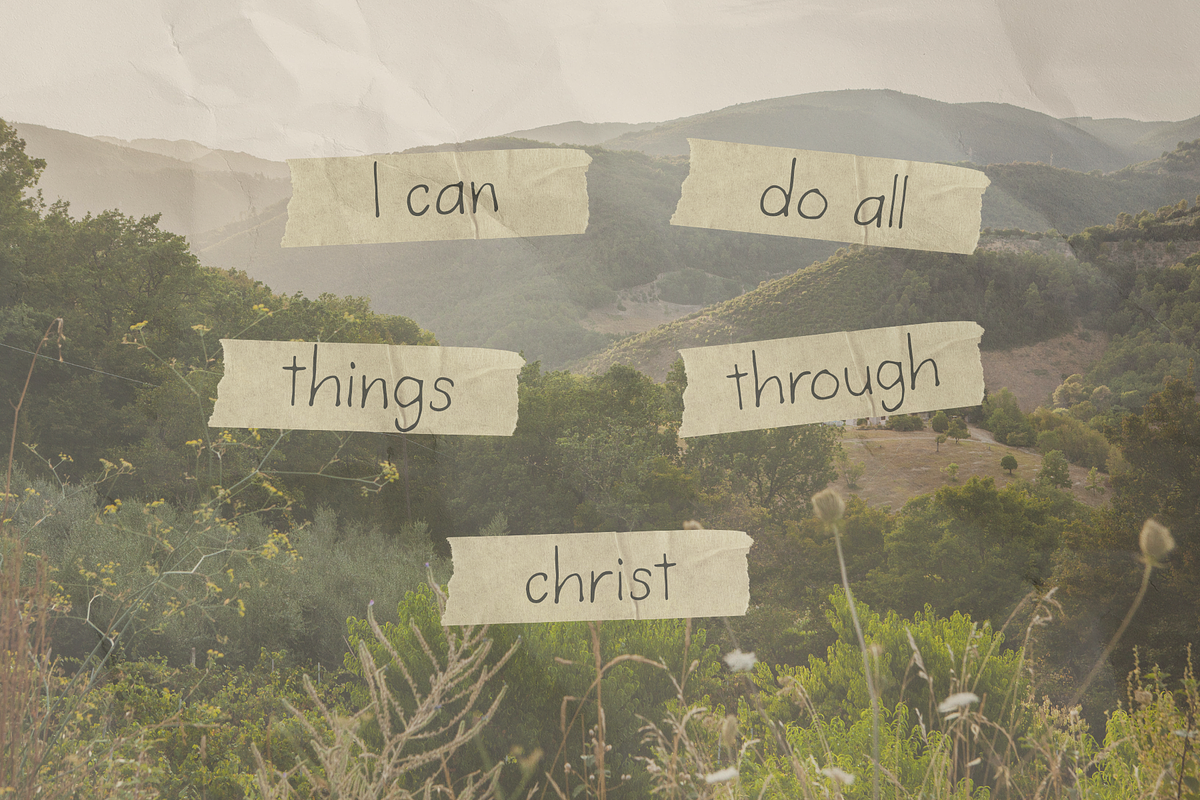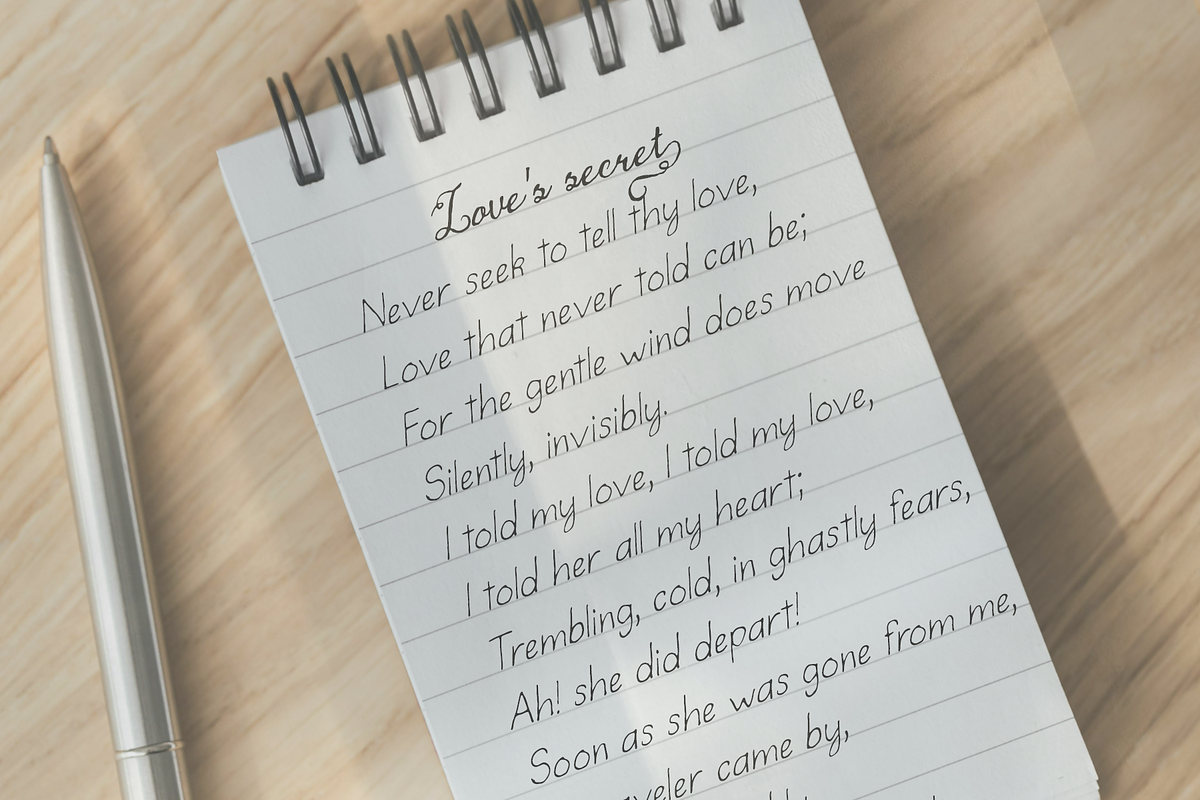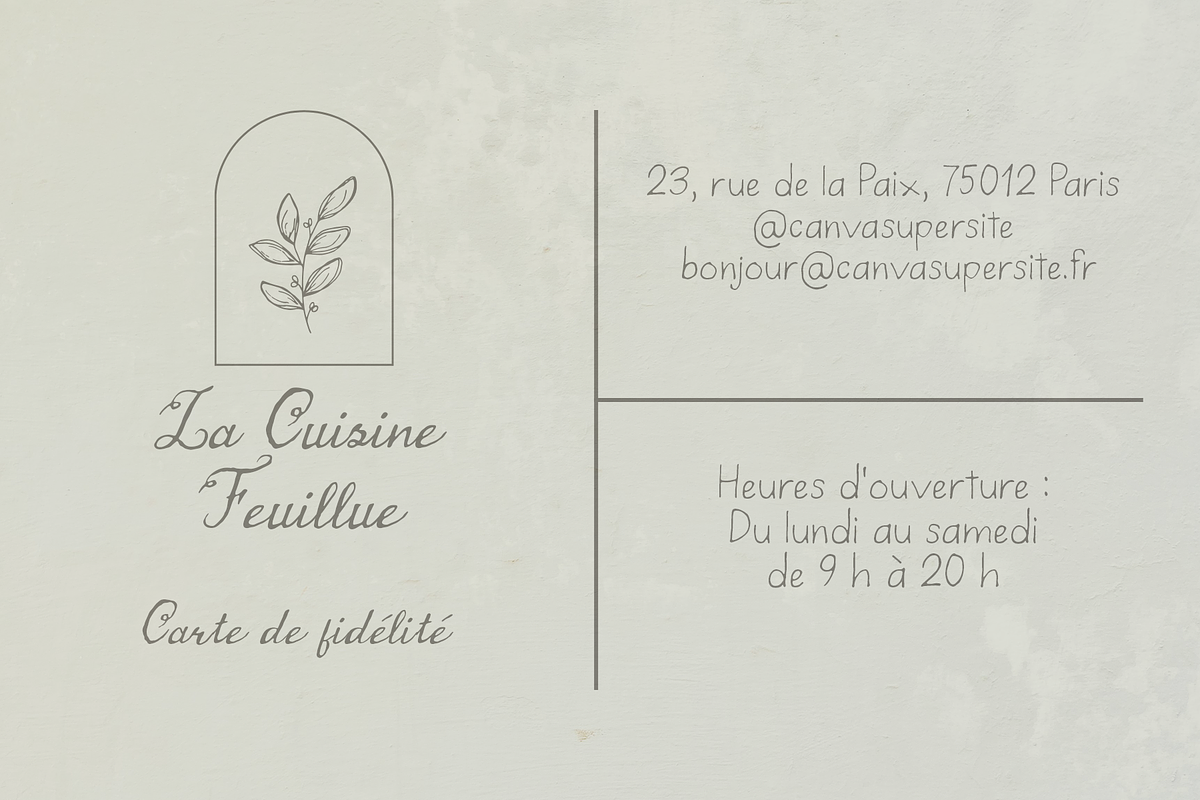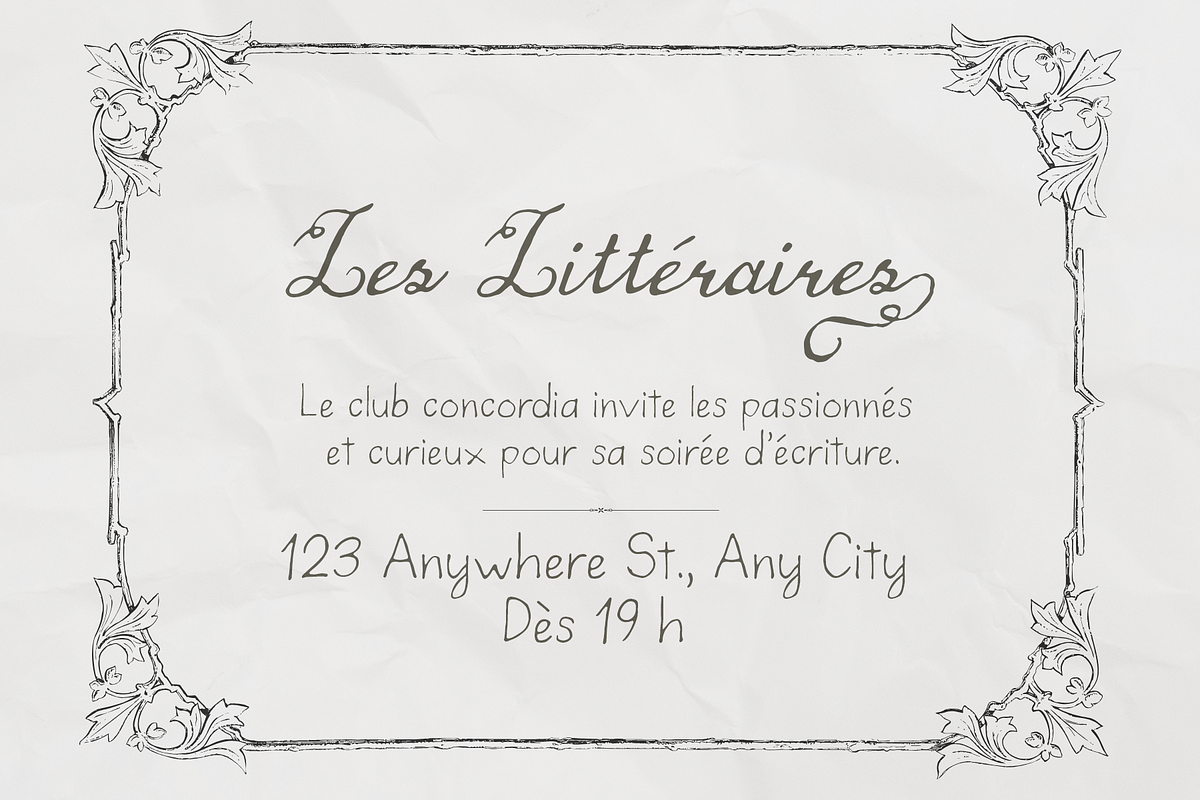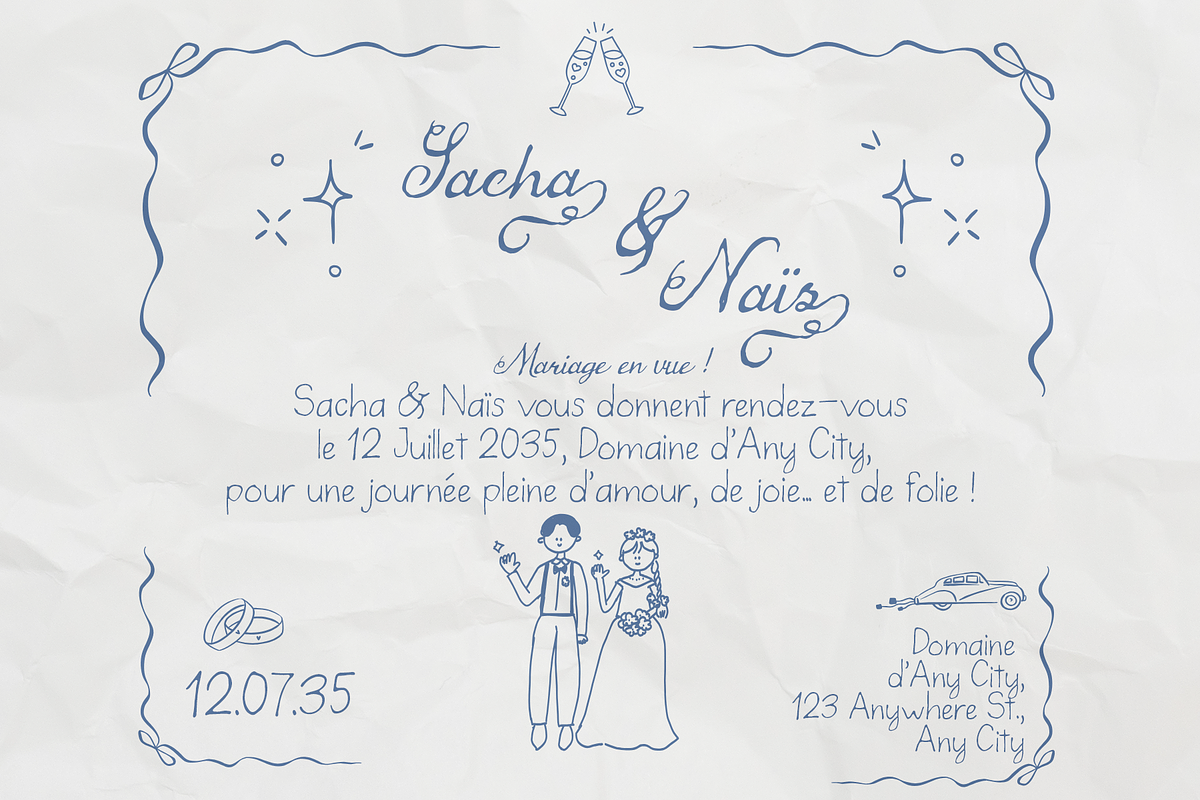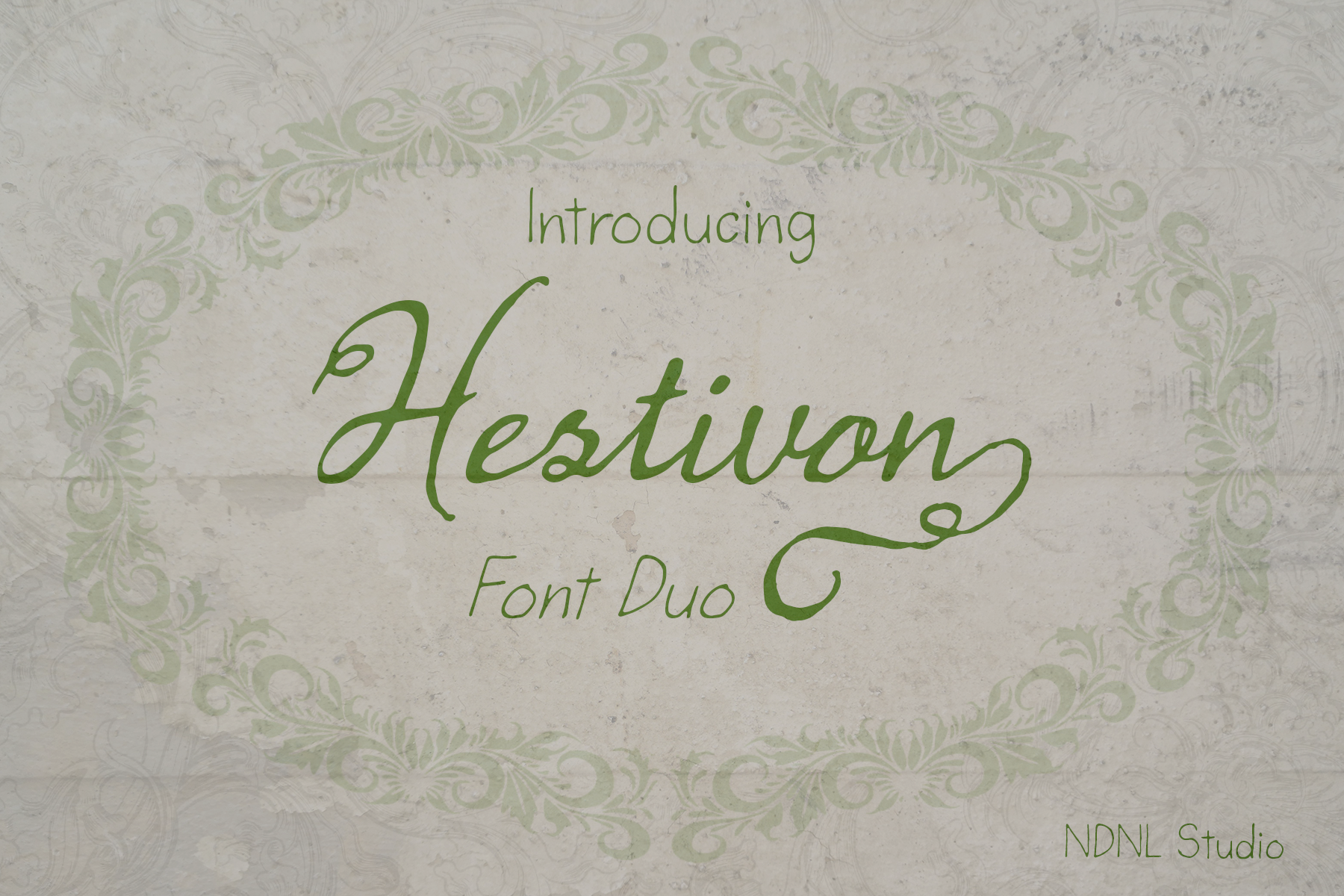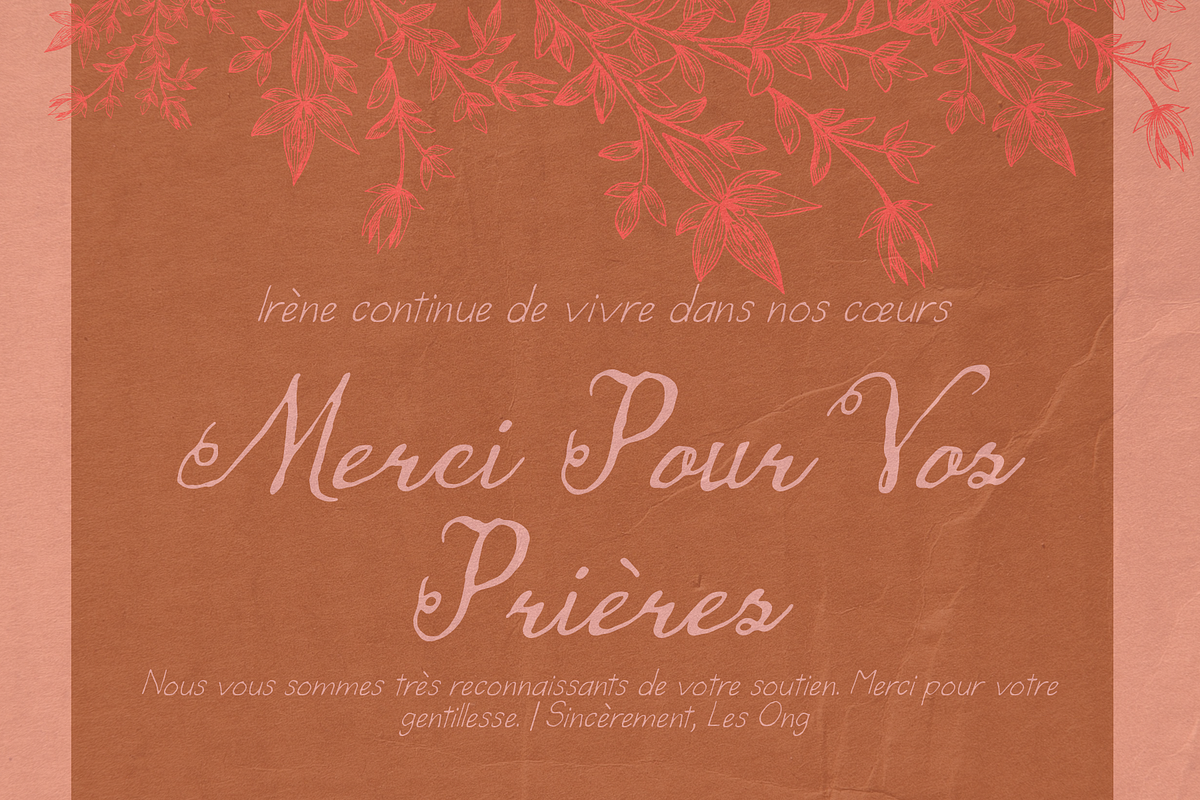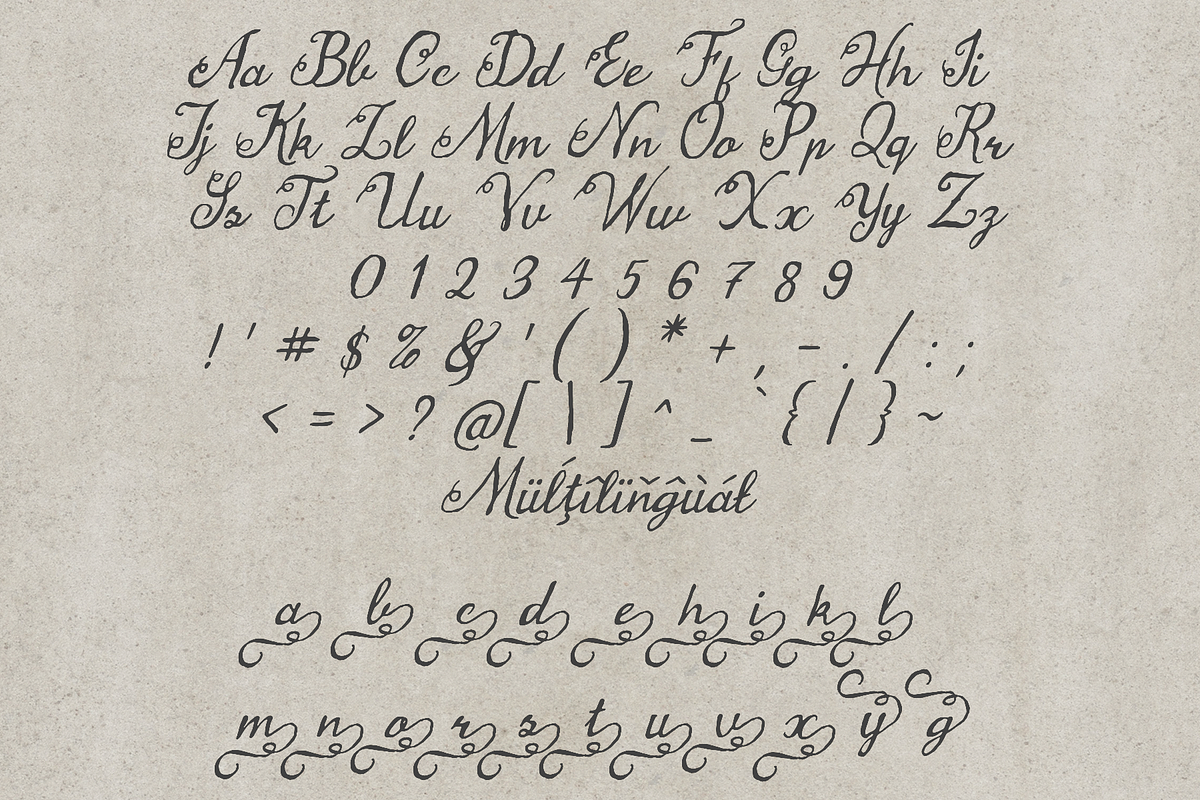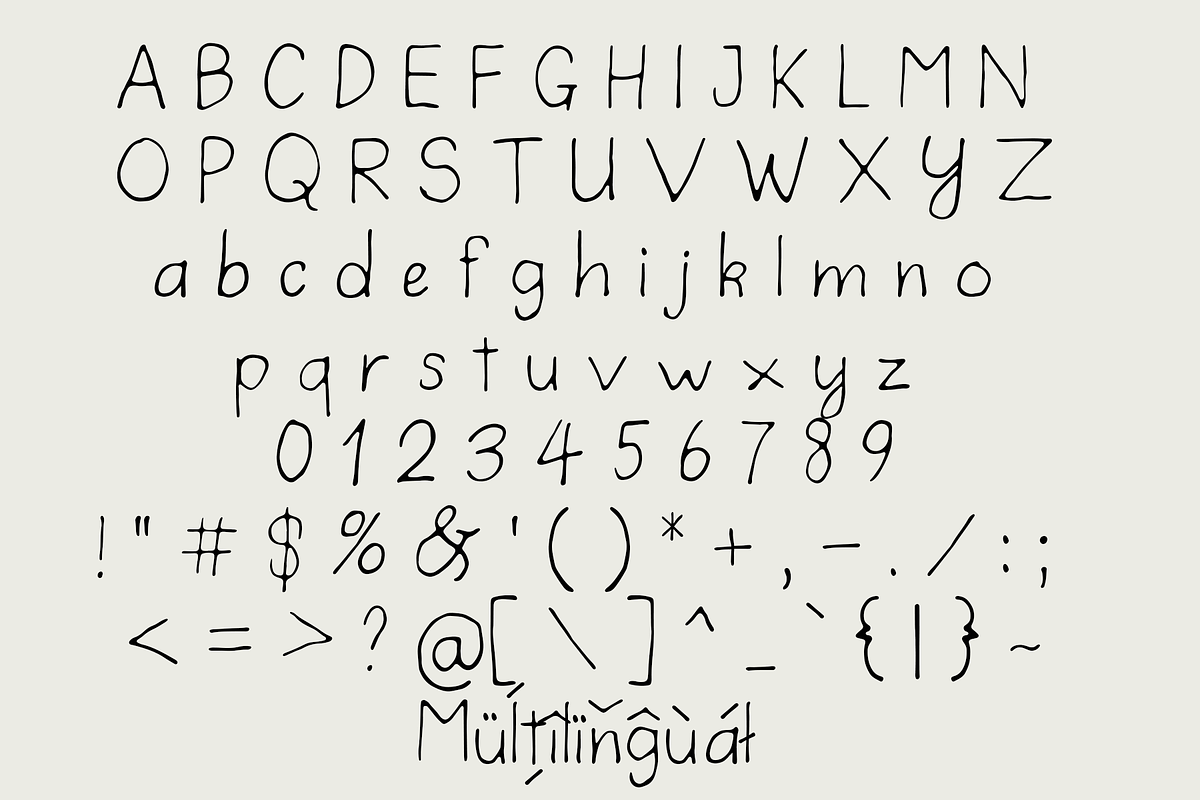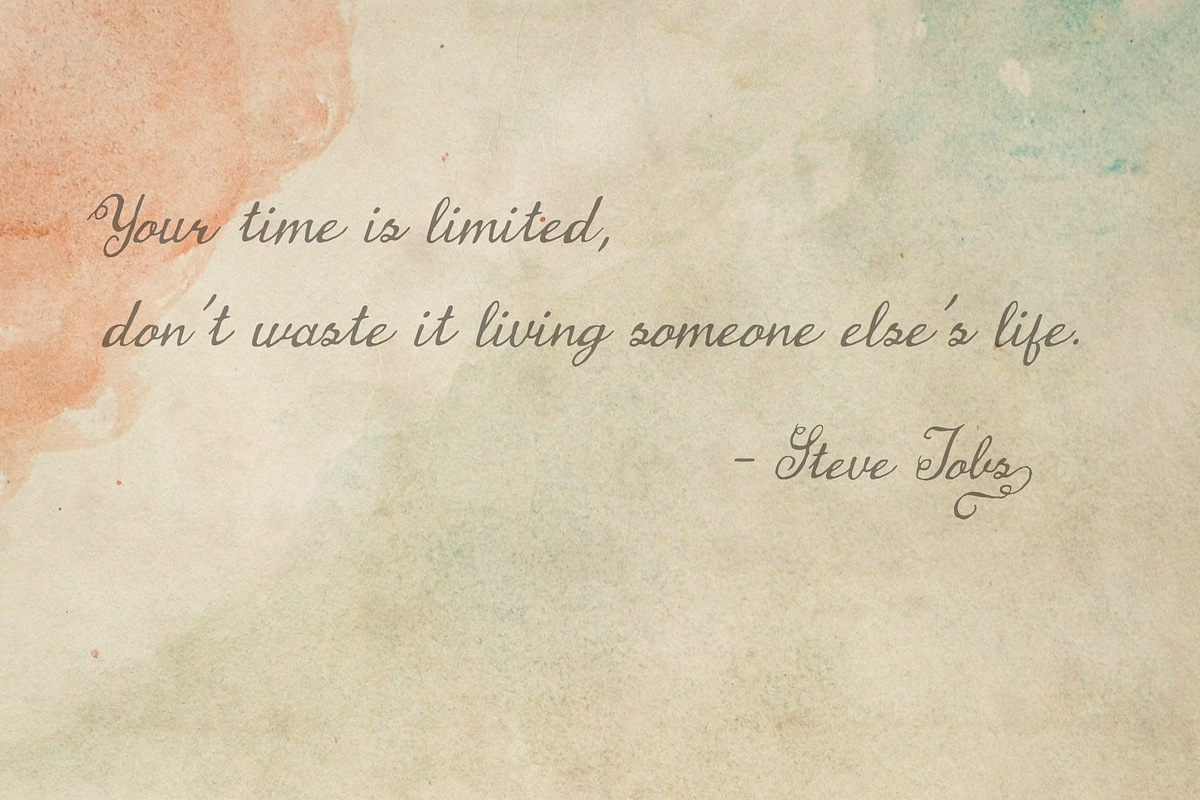
Hestivon – Font Duo
Hestivon Font Duo is a refined combination of a graceful handwritten script and an elegant complementary typeface, delivering a natural yet artistic aesthetic. Featuring flowing curves, stylish ligatures, and delicate ornamental details, Hestivon is perfect for designs that embrace romance, vintage charm, and sophistication.
This font duo works beautifully for wedding invitations, branding, packaging, artistic posters, and handcrafted-style projects. More than just a typeface, Hestivon helps you tell visual stories with elegance and emotion.